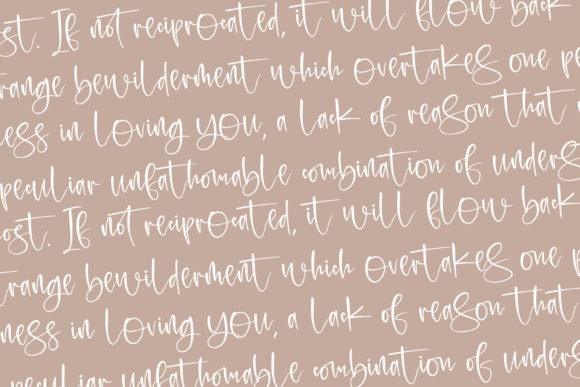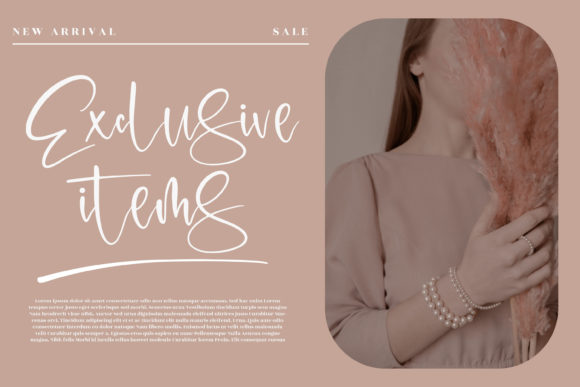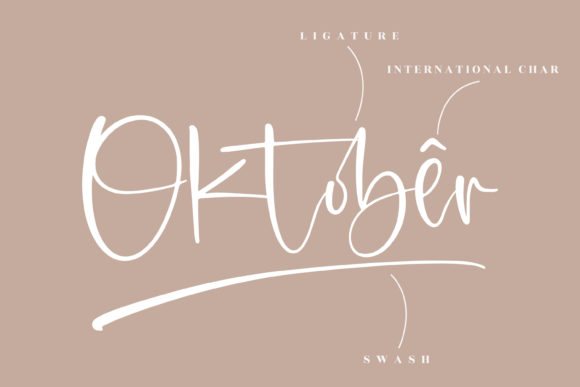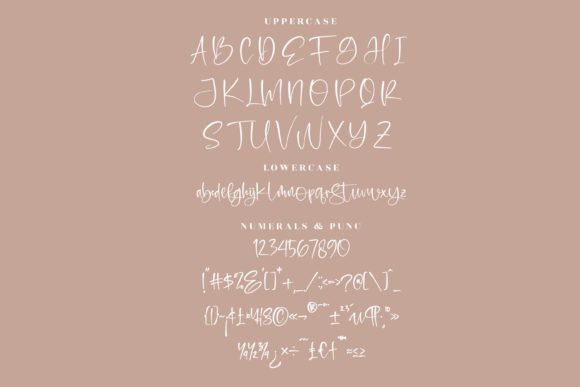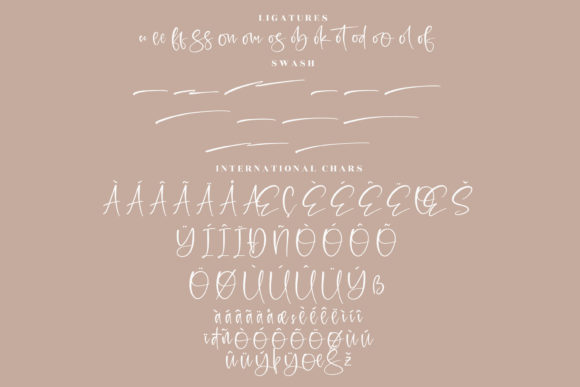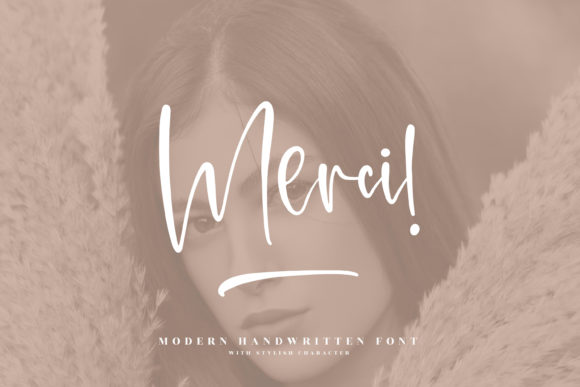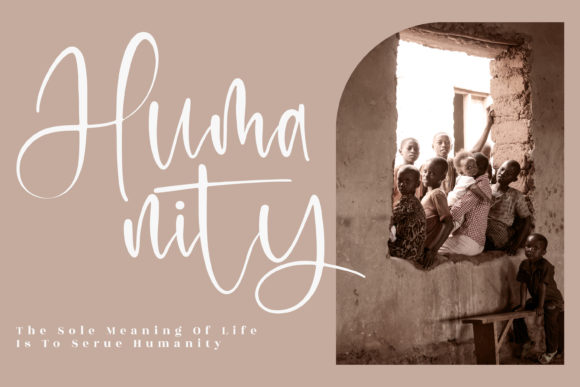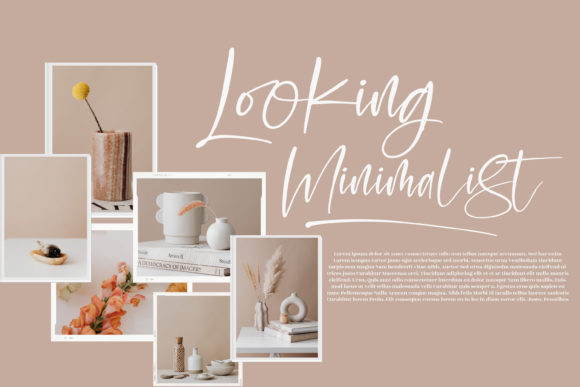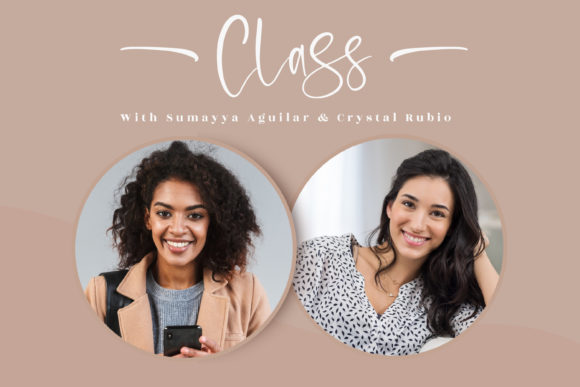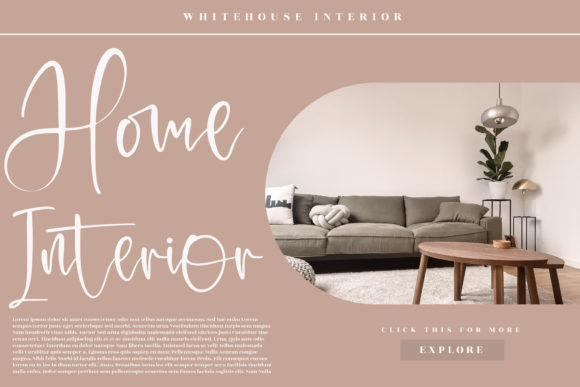
Oktober Font
About Oktober Font
Oktober is a thin and flowing handwritten font. Its flexibility and neat style will brighten up each of your designs. Have fun with this cool font and explore its endless variations.